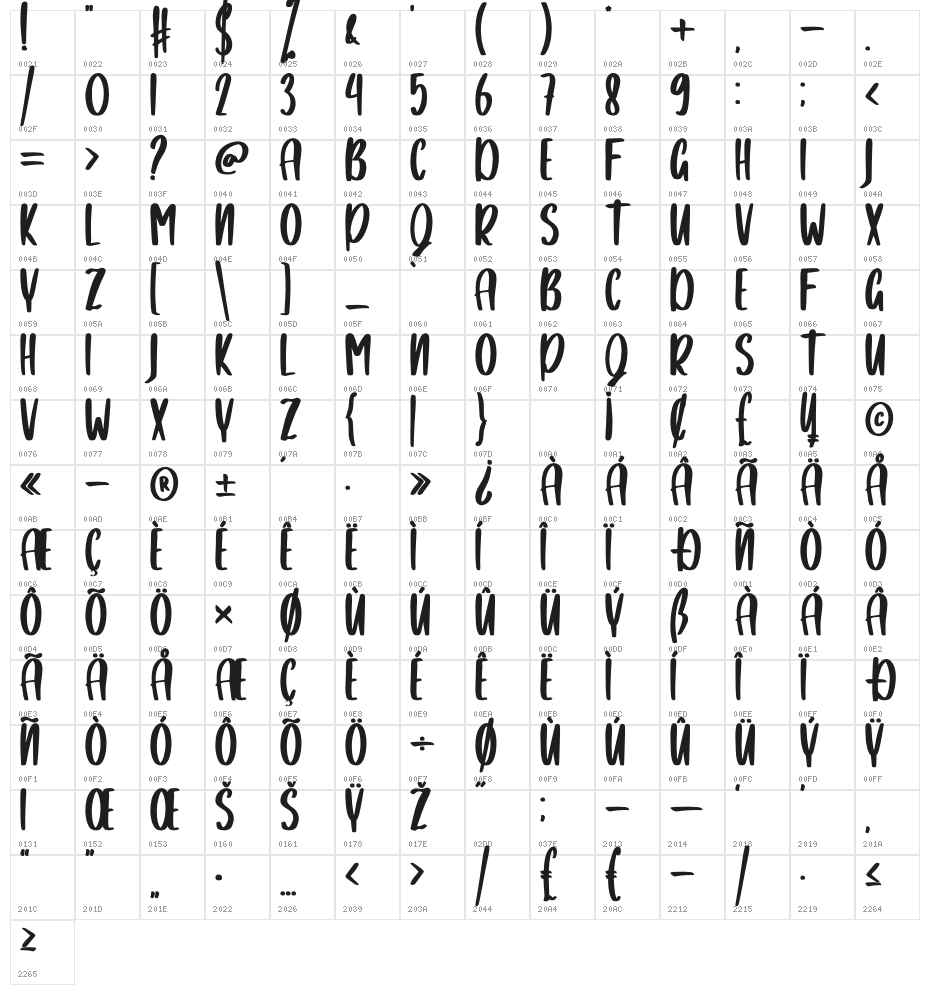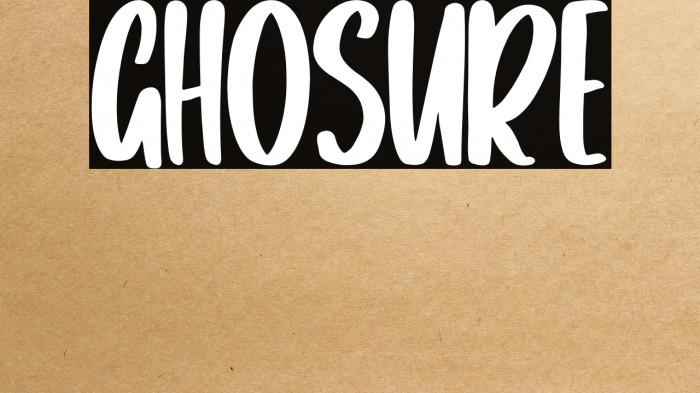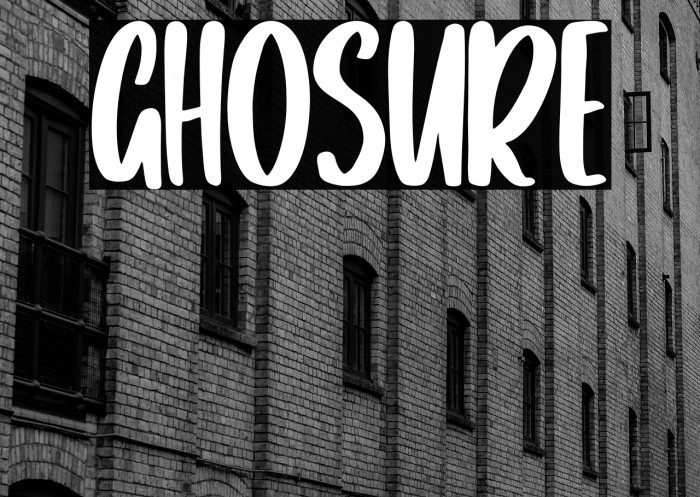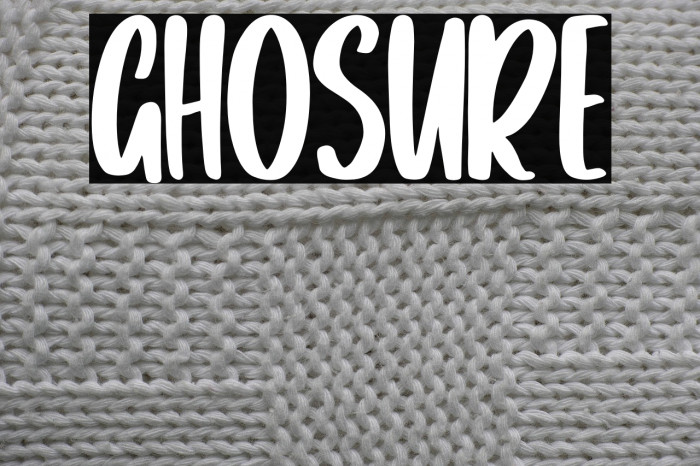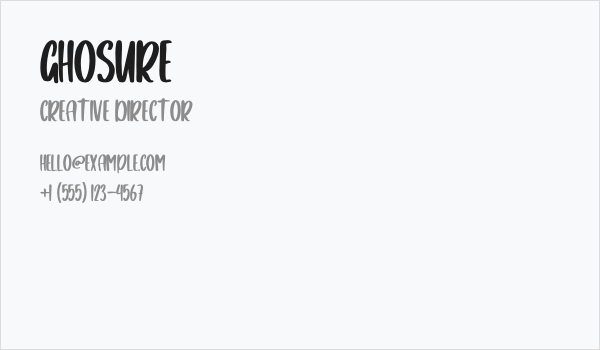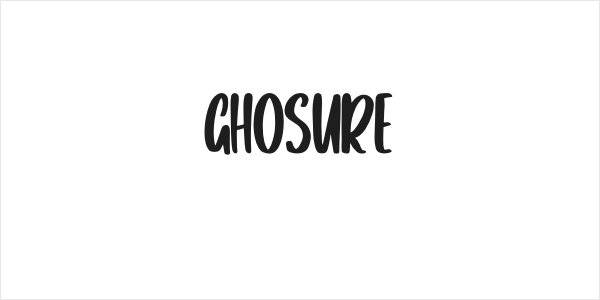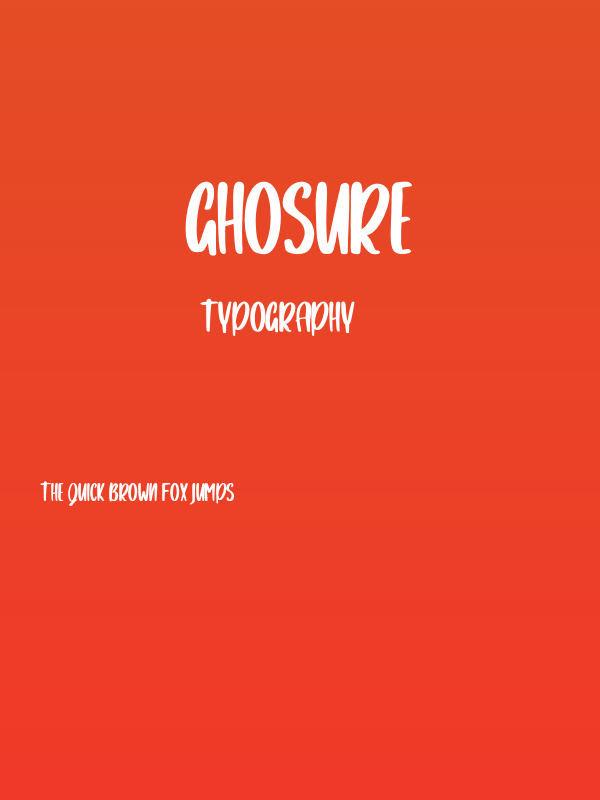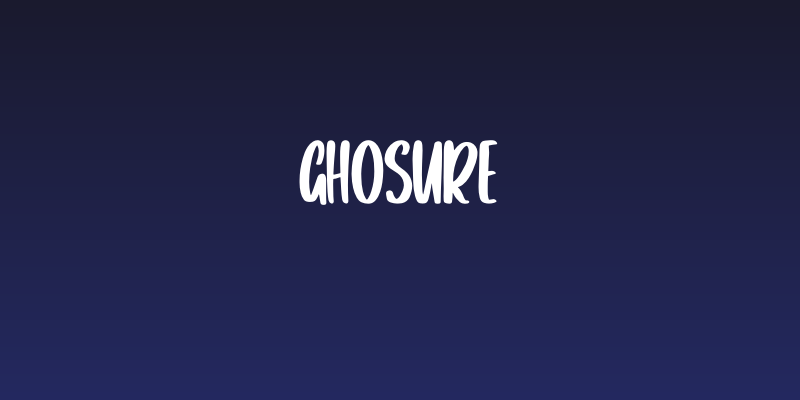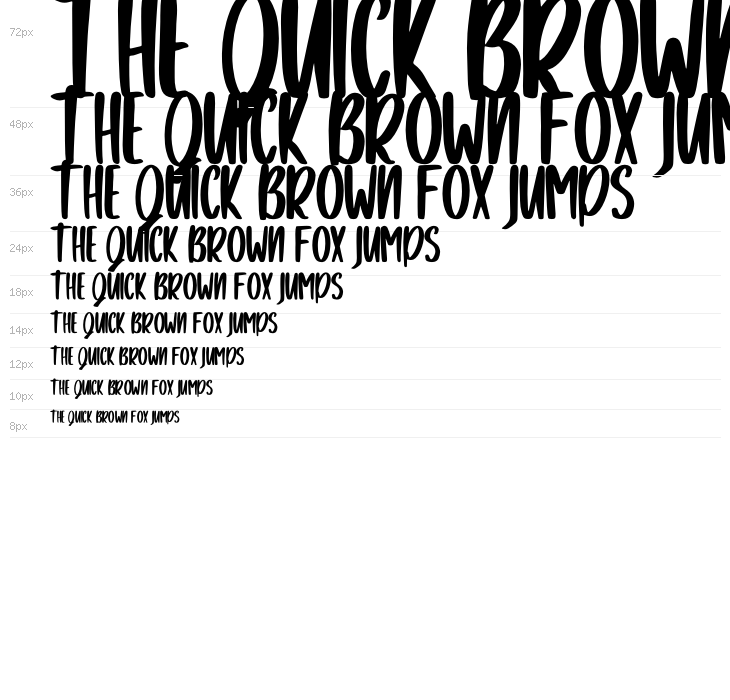
Ghosure Font
Ghosure Description
A bold, handwritten font with a playful and casual style, featuring tall, narrow letters with a slight slant.
| Use Case | Headlines, Posters |
| Proposed Projects | Posters, social media graphics, informal branding. |